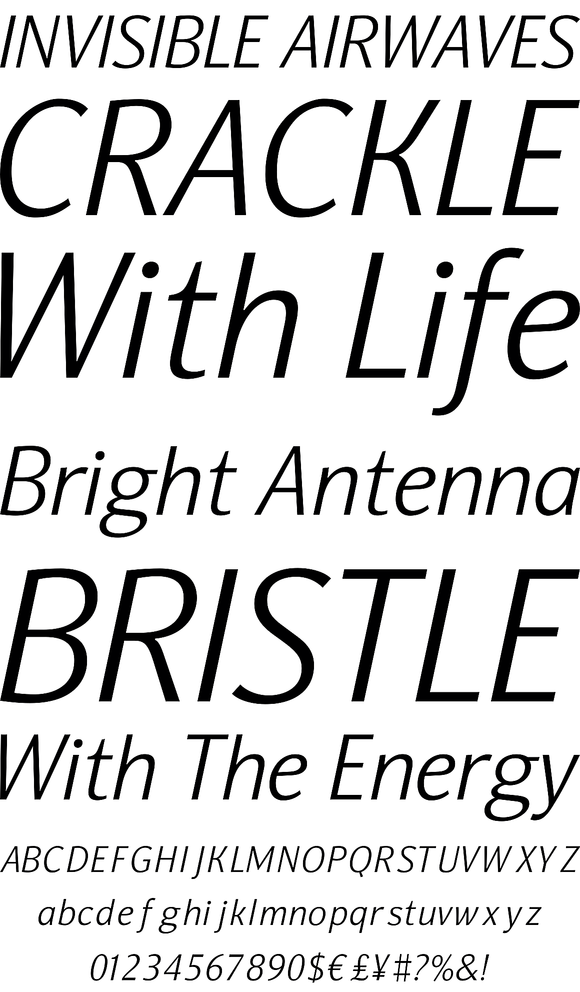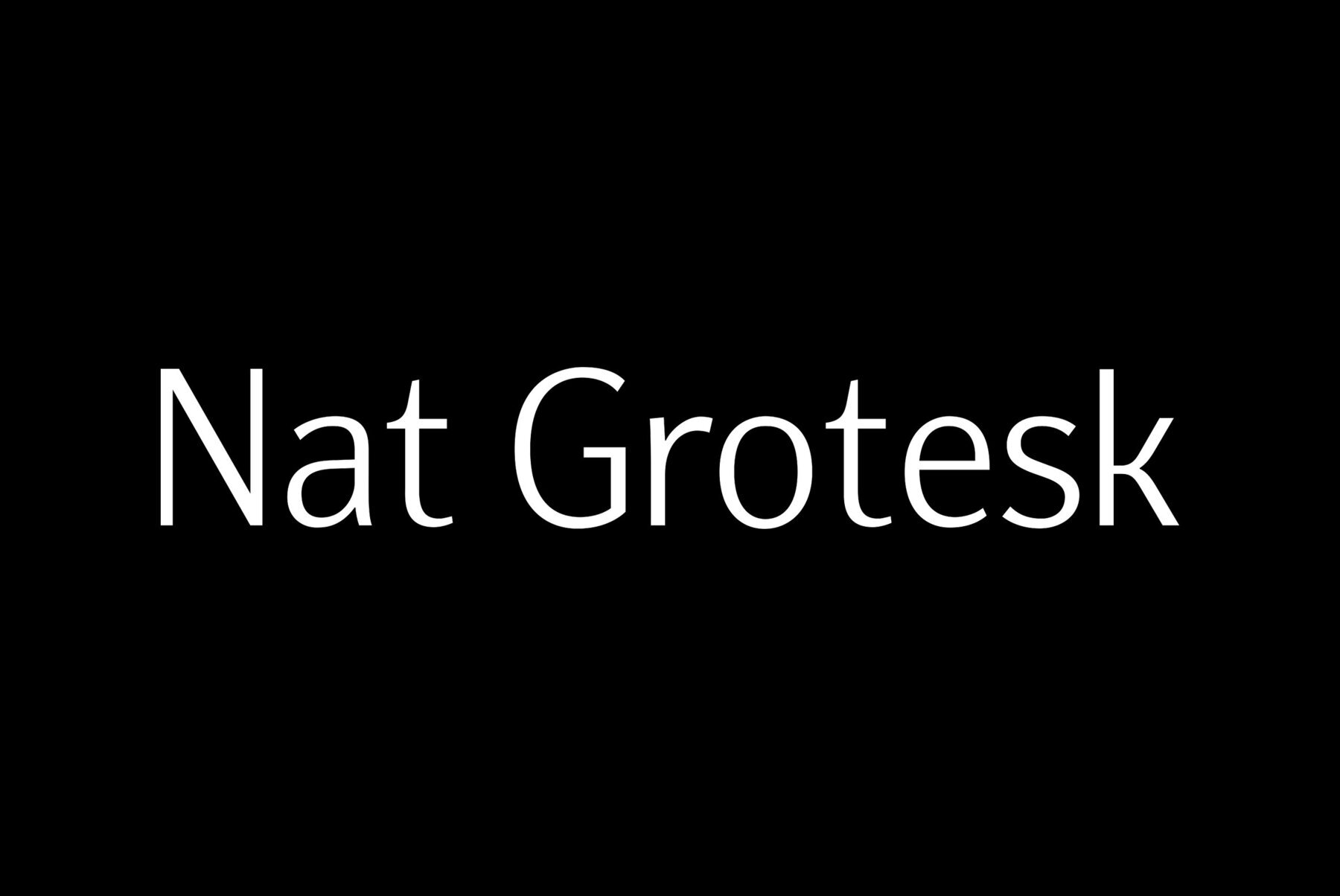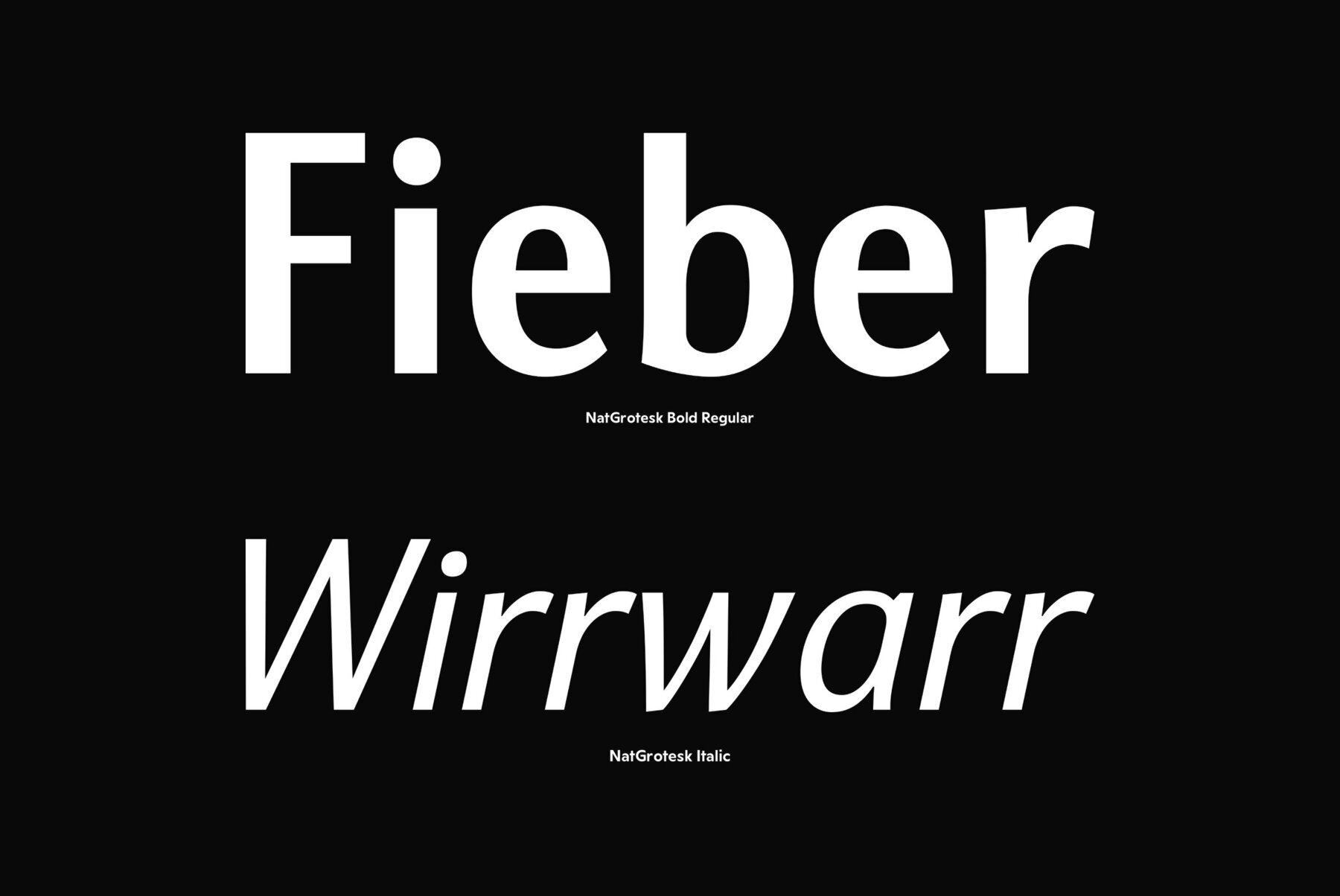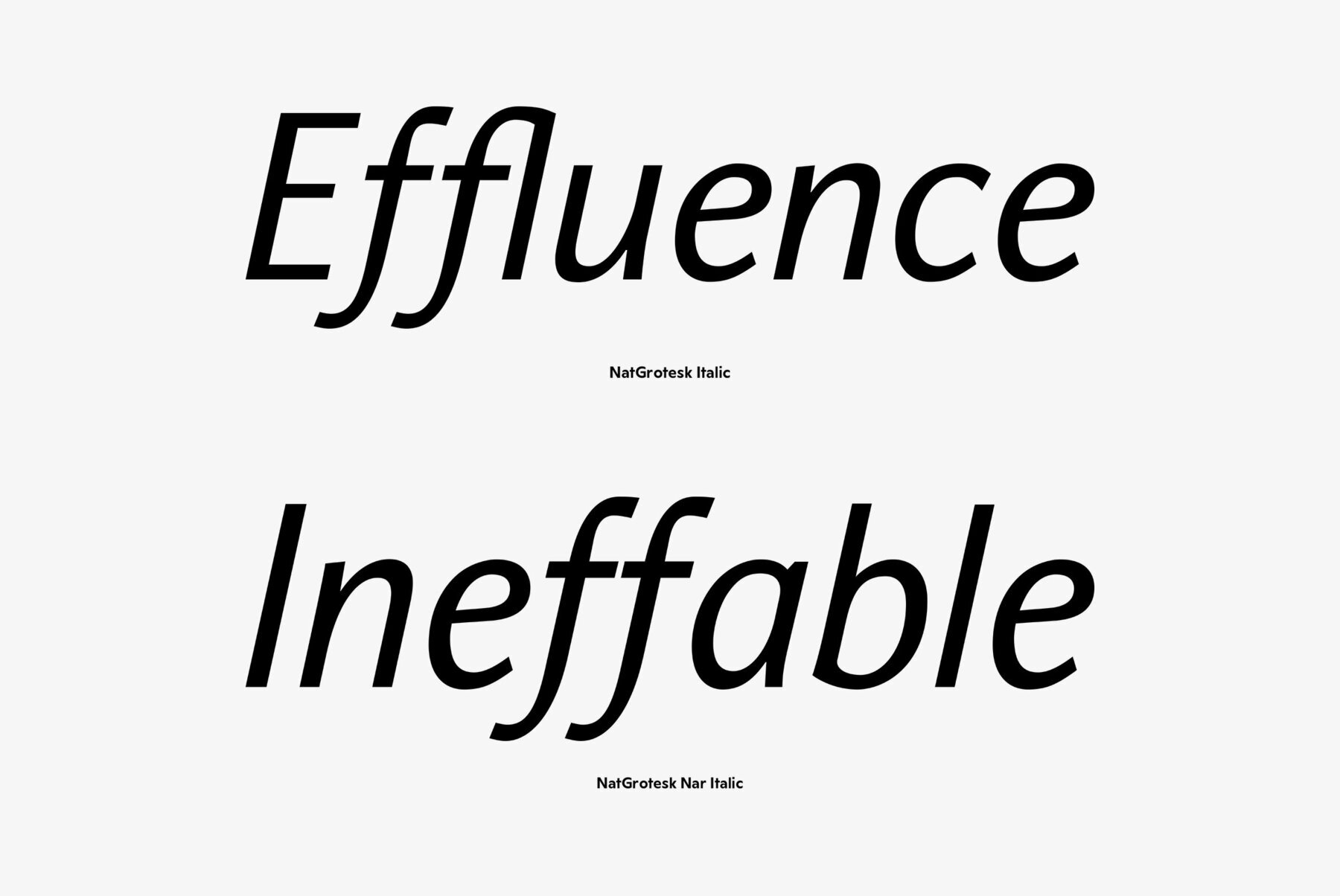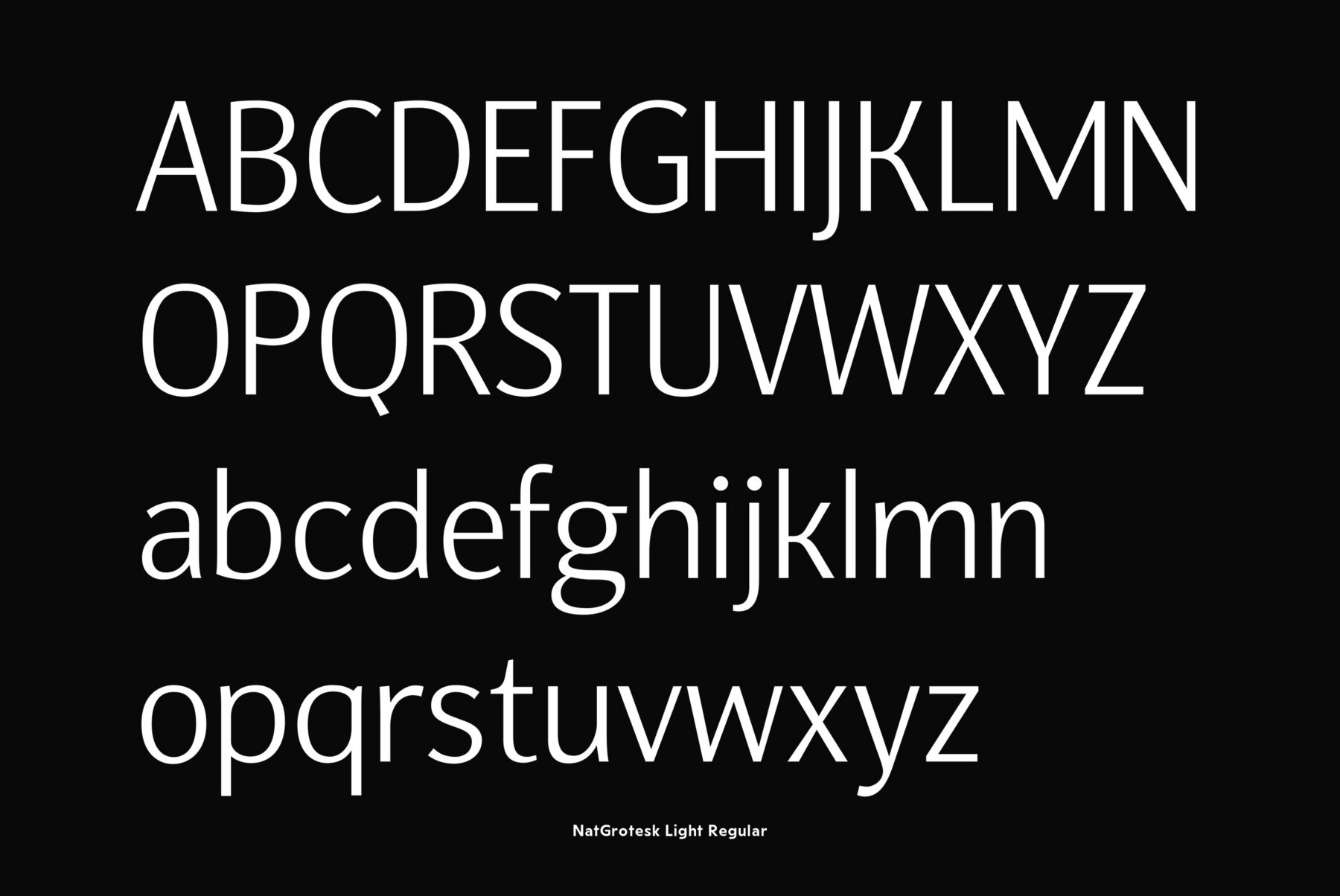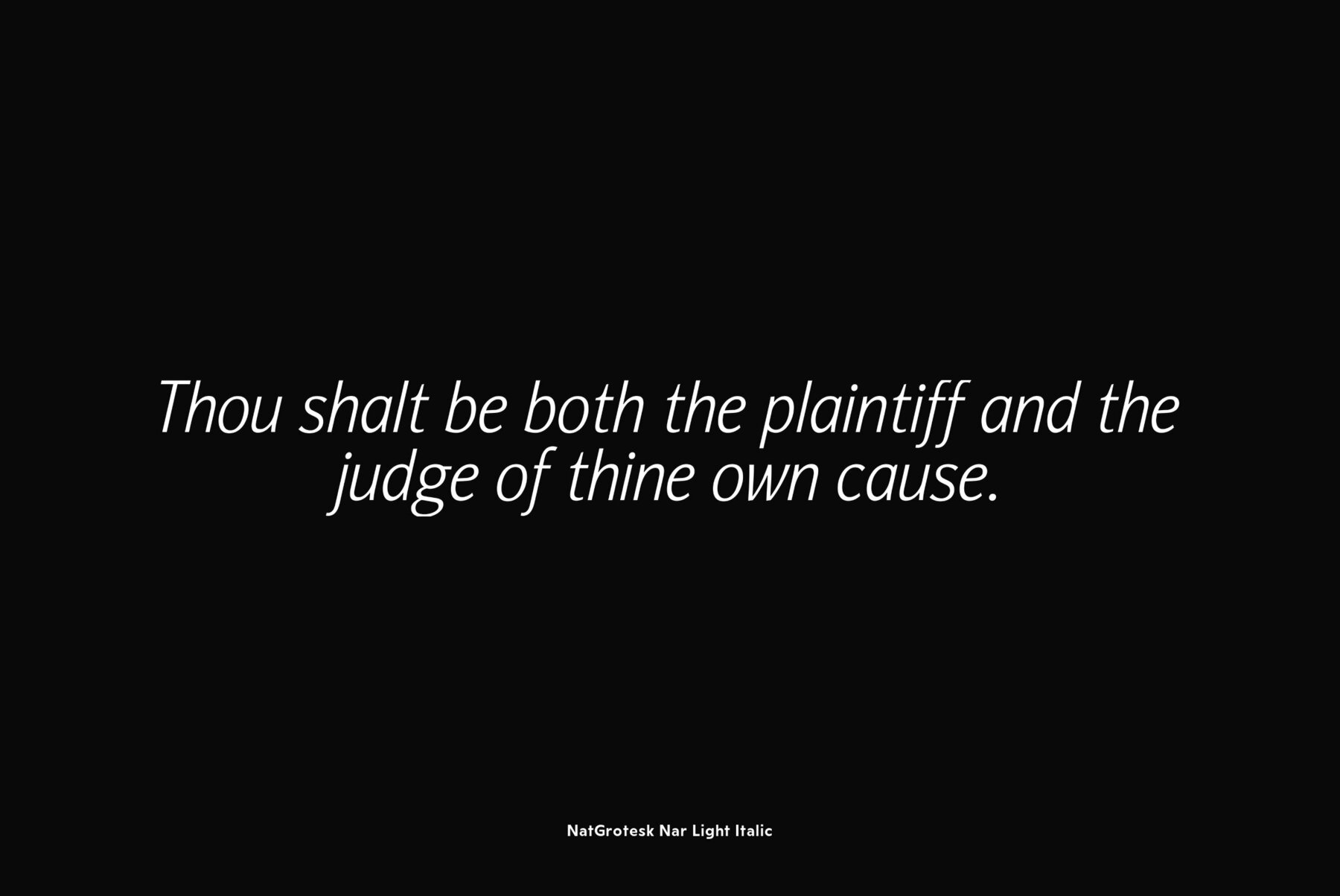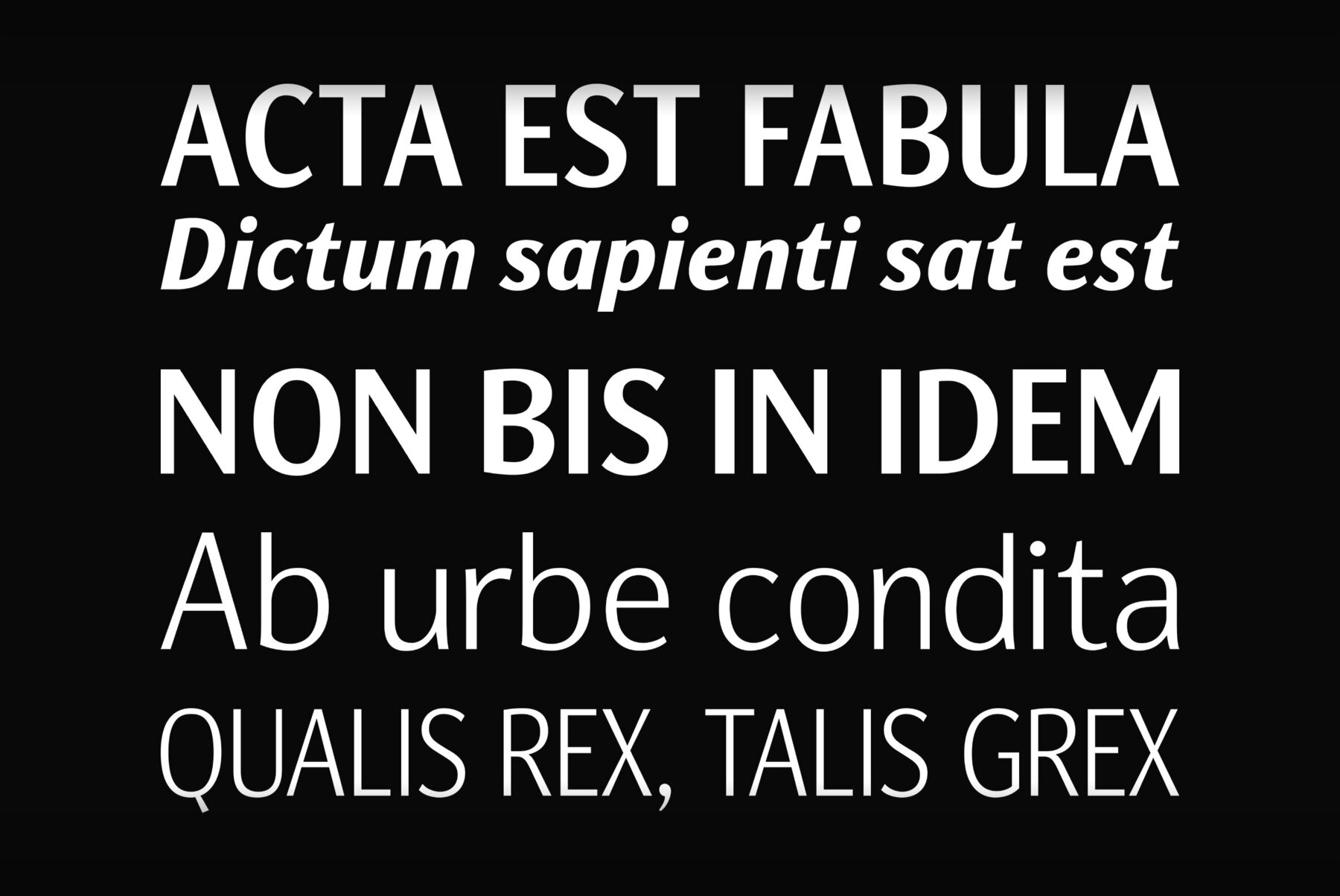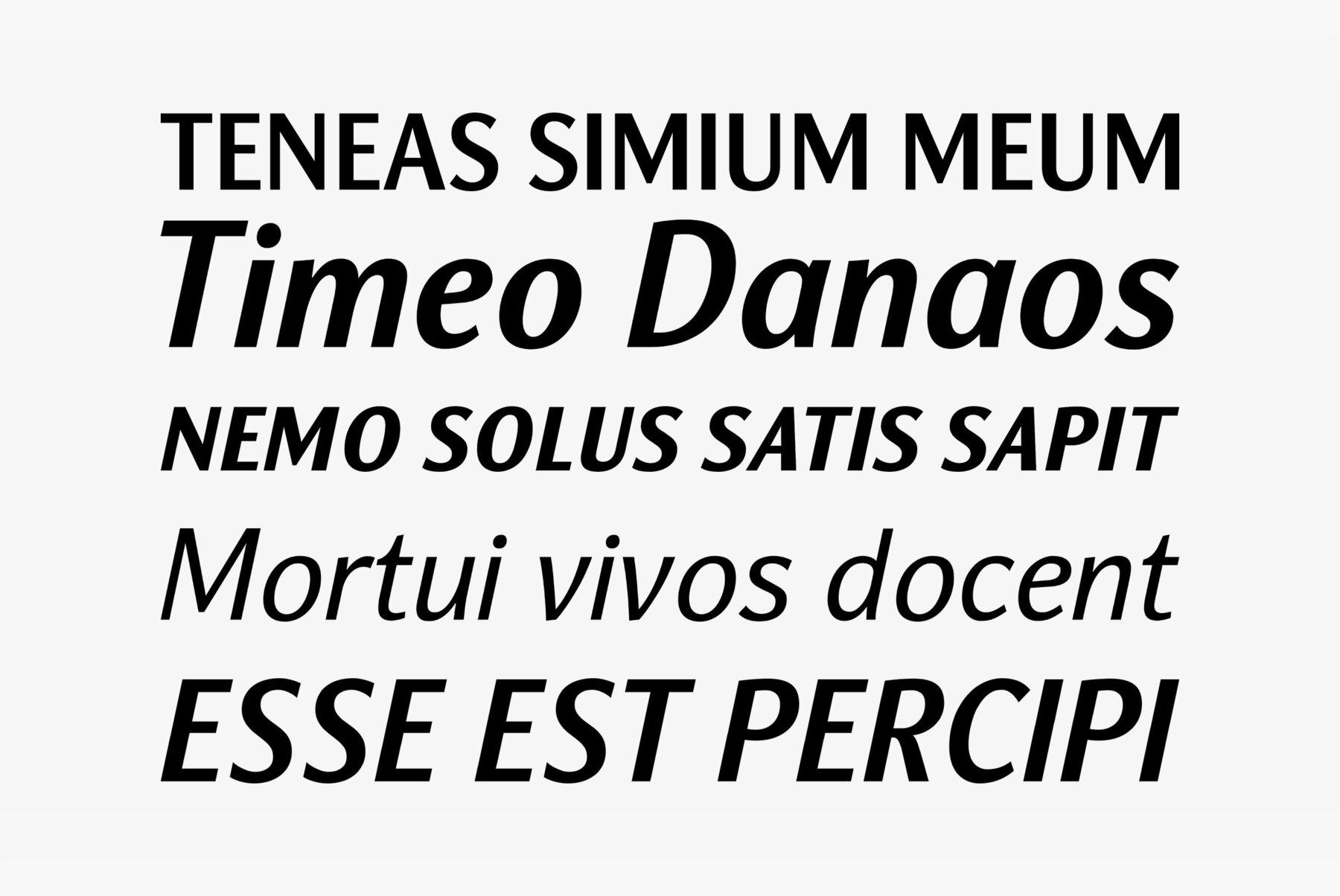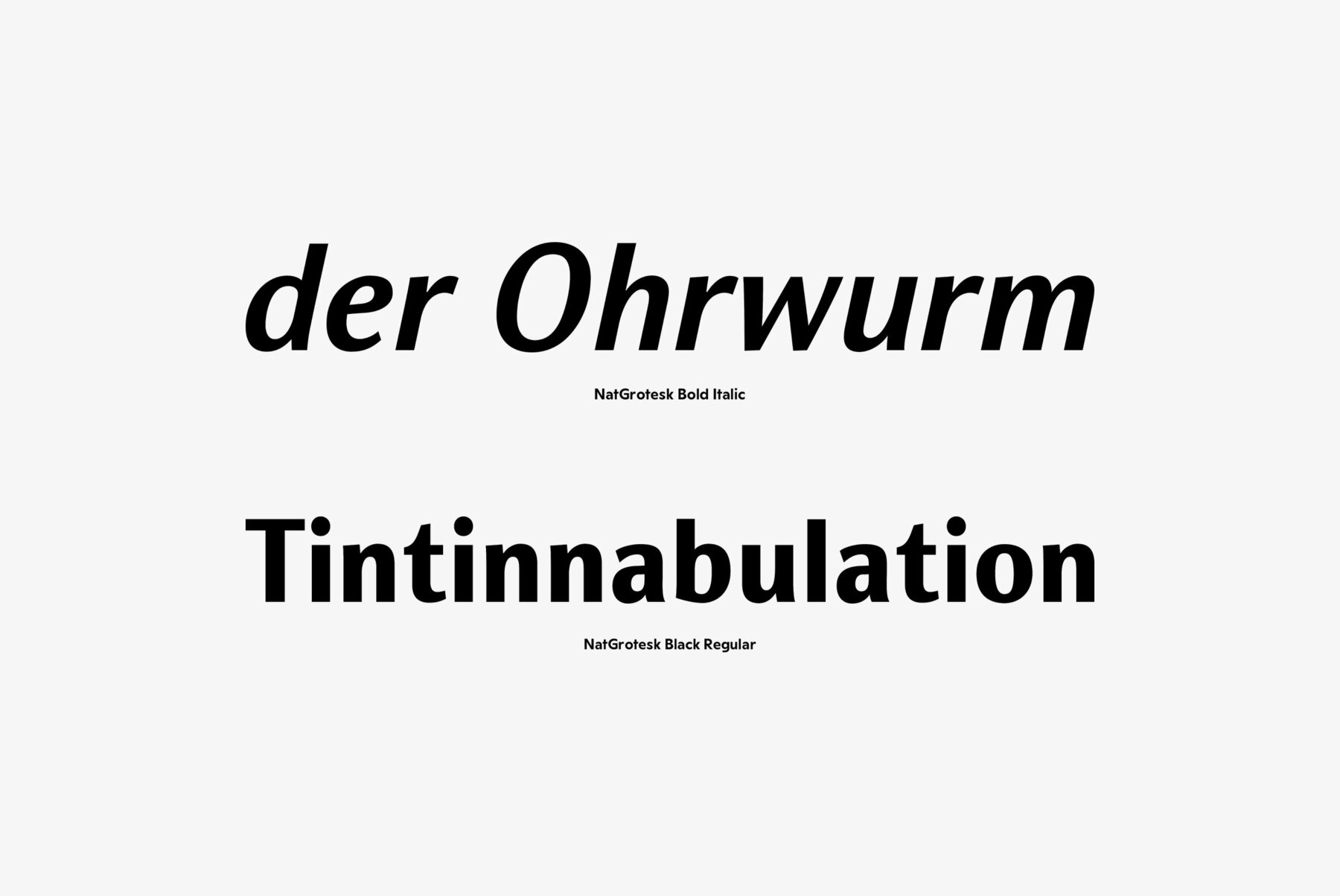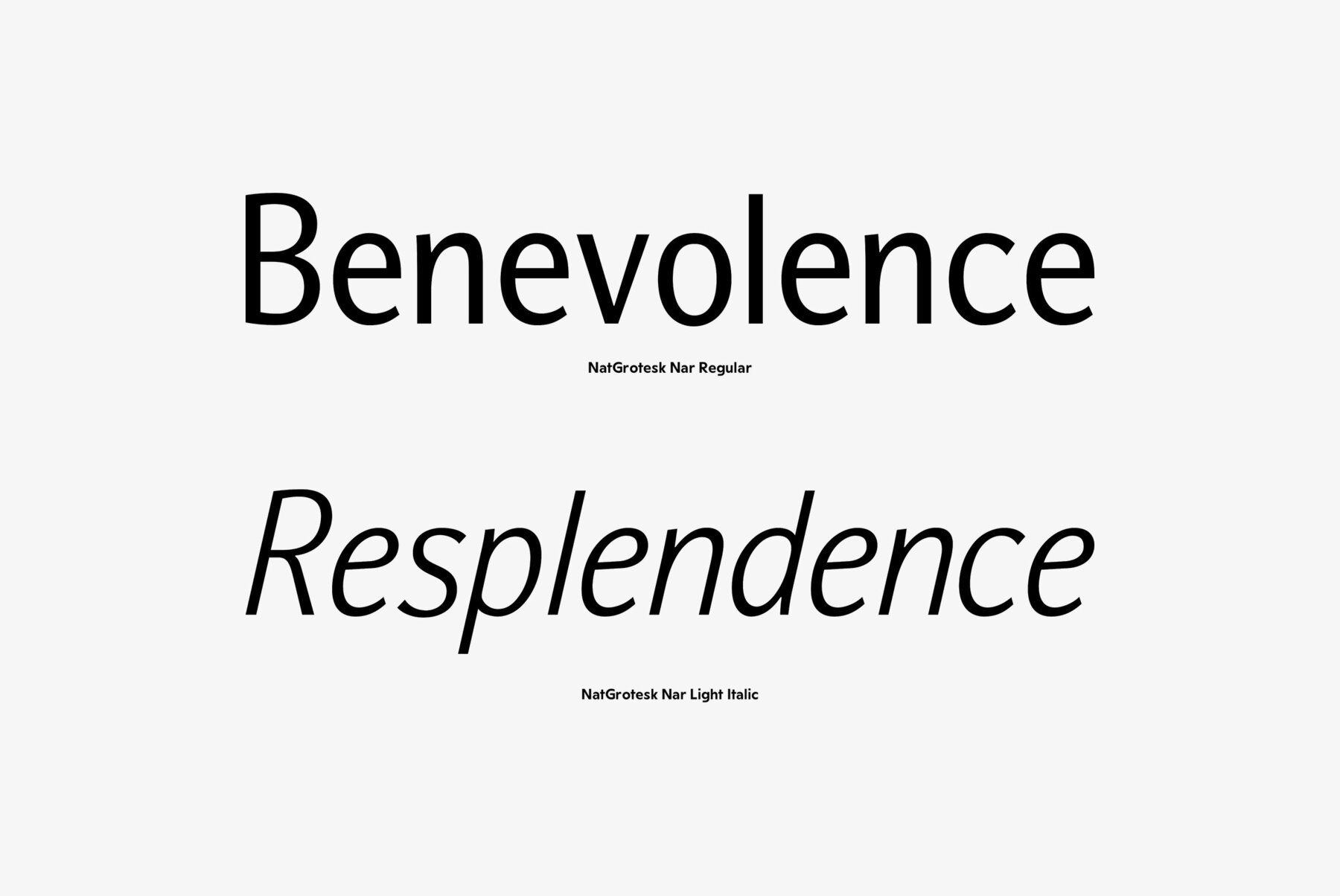
Nat Grotesk
Nat Grotesk family consists of 14 styles including 6 narrow ones. It has a half-closed sans serif design with simple and clear lettershapes. Due to compact proportions the face is very space saving, but nevertheless it is rather legible even in small sizes. The bold weights demonstrate increased contrast. The font is recommended for text and display typography as well as for headlines and advertising. It was designed by Natalia Vasilyeva and released by ParaType in 2007. The upgraded version with extended character set was released in 2009.